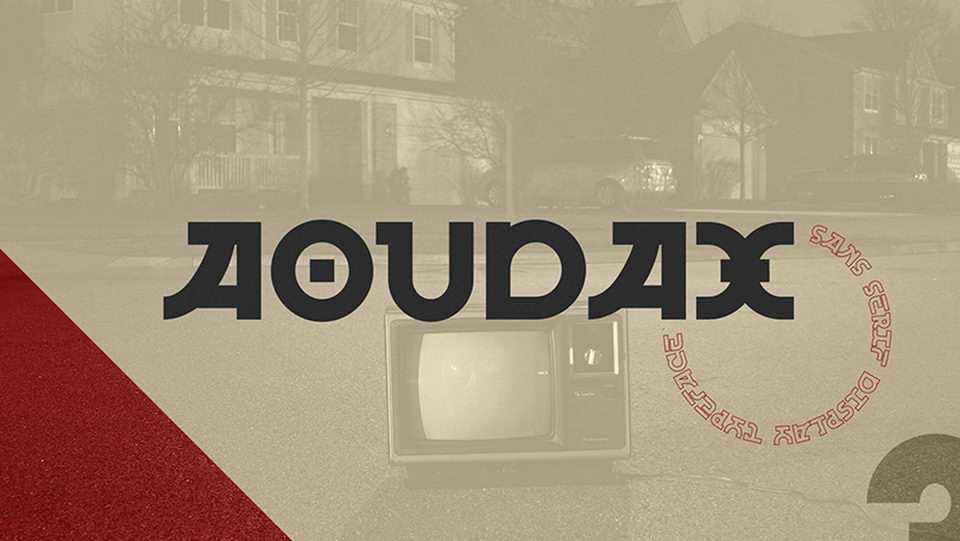
Download Aoudax font, a bold and strong sans serif display typeface with a unique personality. The font is perfect for eye-catching posters, bold headlines, loud messages and other creative projects.
Designer: William Zhang